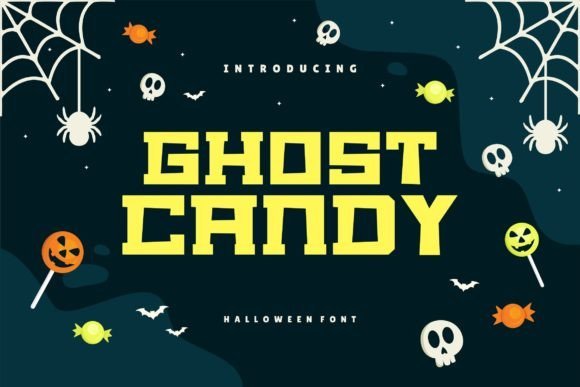
Introduction to Ghost Candy Font
Add a haunting touch to your projects with our Halloween font.
Perfect for creepy posters, eerie invitations, and all your spooky season needs Get it now and make your designs unforgettable.
Ghost Candy Font offers exceptional quality and versatility, making it a valuable addition to your design toolkit. Whether you’re creating for personal projects or commercial use, Ghost Candy Font delivers professional results.